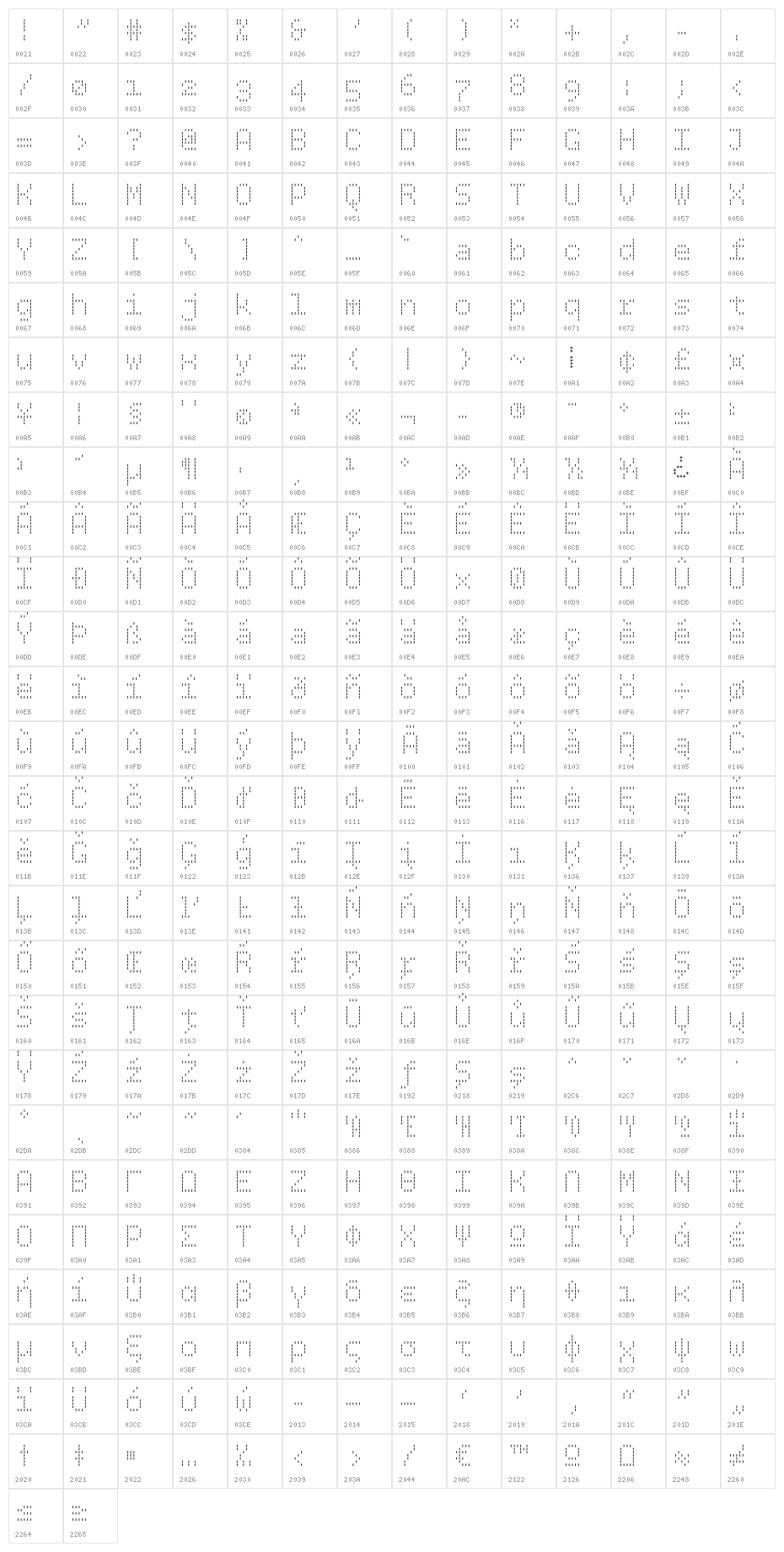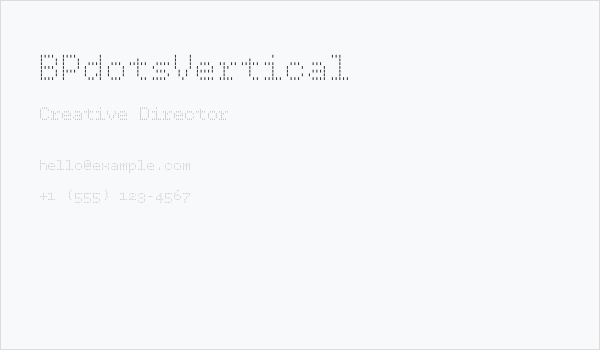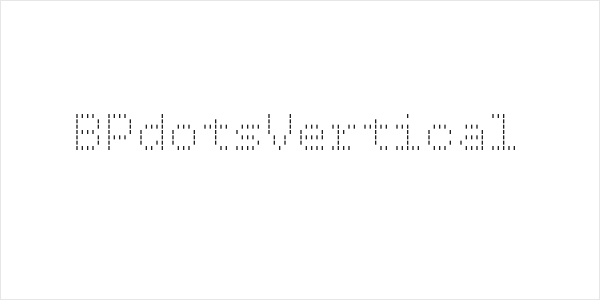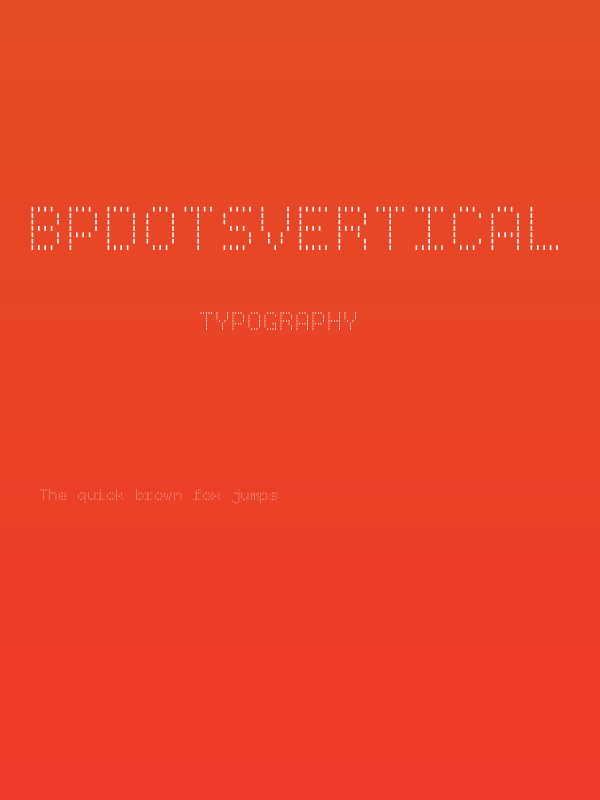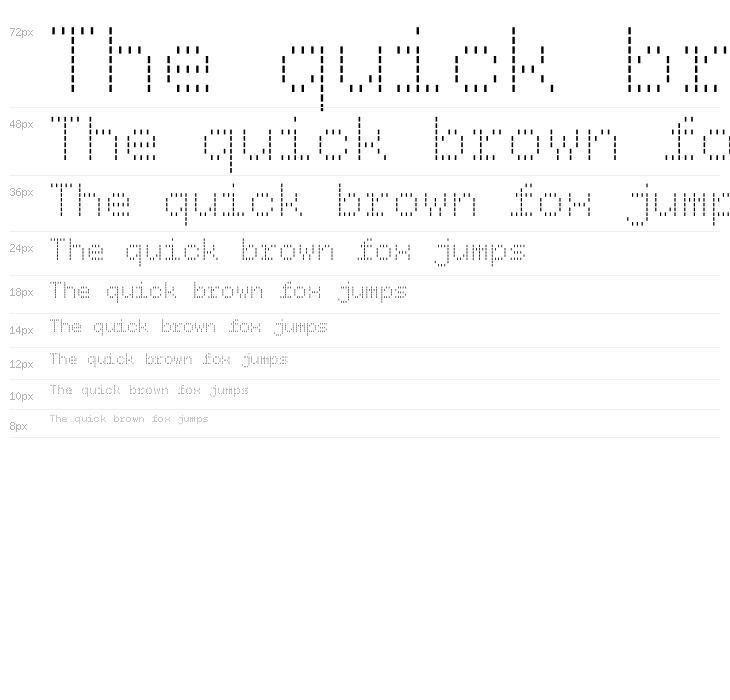
BPdotsVertical Font
BPdotsVertical Description
This font features a unique design composed entirely of vertical dots, creating a digital and modern aesthetic. Each character is formed by a series of evenly spaced dots, giving it a distinctive pixelated appearance. The font maintains a consistent structure across uppercase, lowercase, numbers, and special characters, ensuring readability while offering a playful and innovative style. Its geometric and modular nature makes it stand out, ideal for creative projects that require a futuristic or tech-inspired look.
| Use Case | Logos, Headlines, Digital displays |
| Proposed Projects | Ideal for digital art, tech branding, futuristic posters, and creative displays. |